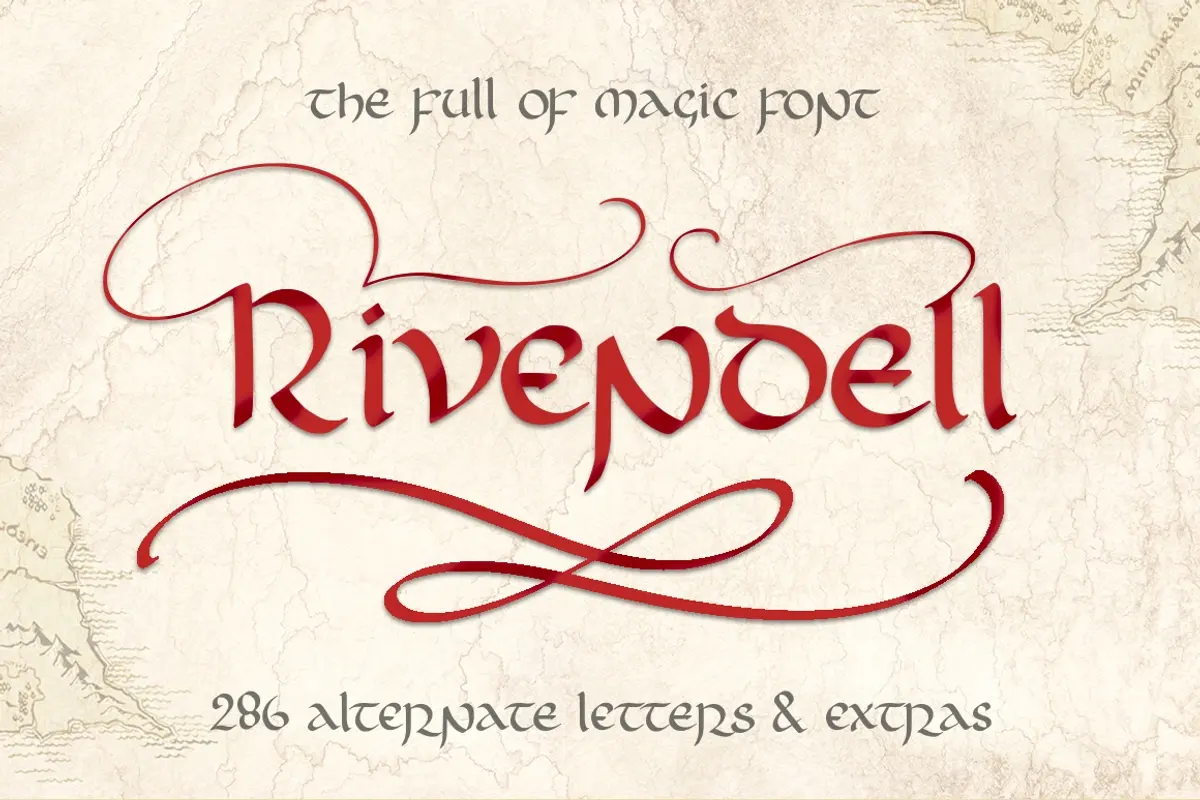
Rivendell. The full of magic font. Free Download
Rivendell – The Full of Magic Font Free Download
Rivendell – The Full of Magic Font Free Download is an enchanting, fantasy-inspired typeface that captures the elegance and mystery of mythical worlds. With its graceful curves, elvish details, and storybook charm, this font is perfect for fantasy book covers, game titles, mystical branding, enchanted event invitations, and anything that calls for a touch of magic.
Designed to transport your audience into a realm of wonder, Rivendell – The Full of Magic Font Free Download adds depth and atmosphere to your typography. It's ideal for use in high-fantasy themes, role-playing content, or branding that draws from folklore and legends.